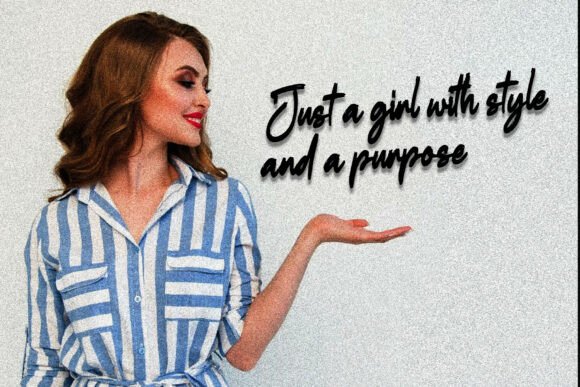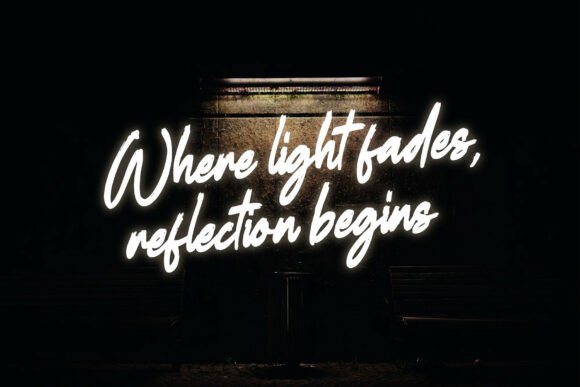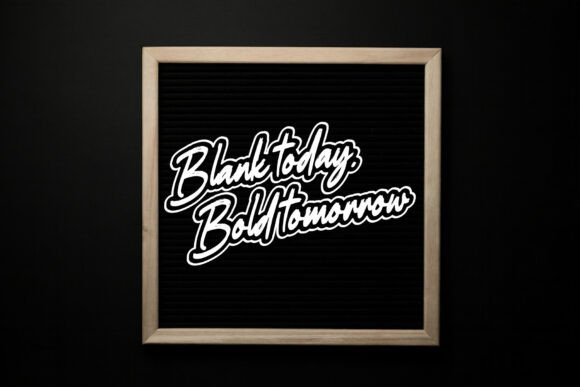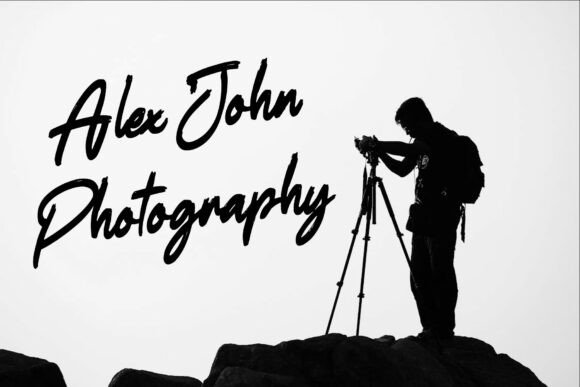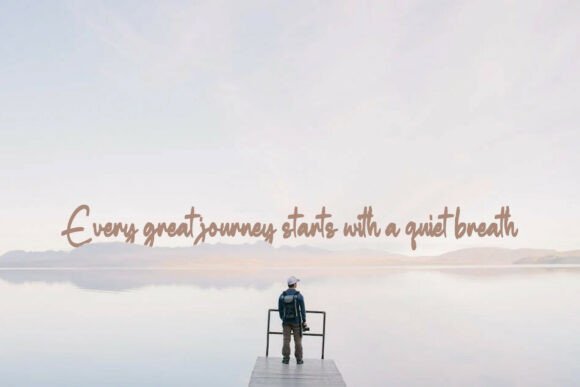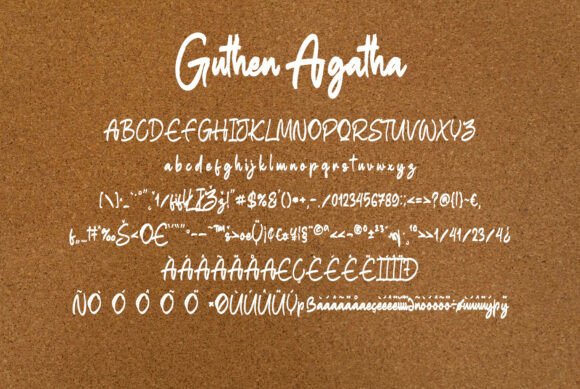
Guthen Agatha Font: Elevate Your Designs with Elegant Handscript Style
Are you tired of using the same old fonts in your designs? Look no further than Guthen Agatha, a stylish handscript font that brings a dynamic, modern edge to any project. With its bold strokes and effortless elegance, Guthen Agatha is perfect for designers and crafters looking to add a touch of sophistication to their work.
What is Guthen Agatha Font?
Guthen Agatha is a carefully crafted handscript font that mimics authentic signature writing. Its unique blend of bold strokes and fluid movements gives it a strong personality that’s both energetic and elegant. The font’s slightly rough texture adds a layer of depth and character, making it perfect for a wide range of applications, from branding and posters to apparel and creative headlines.
Key Features of Guthen Agatha Font
• Stylish Handscript Style: Guthen Agatha boasts a beautiful, handscript style that’s perfect for adding a personal touch to your designs.
• Bold Strokes: The font’s bold strokes give it a confident and dynamic feel that’s sure to grab attention.
• Effortless Elegance: Despite its bold strokes, Guthen Agatha maintains an air of elegance and sophistication, making it perfect for high-end branding and designs.
• Energetic Flow: The font’s energetic flow and fluid movements give it a sense of movement and energy.
• Slightly Rough Texture: The font’s slightly rough texture adds a layer of depth and character, giving it a unique and authentic feel.
• Versatility: Guthen Agatha is incredibly versatile, making it perfect for a wide range of applications, from branding and posters to apparel and creative headlines.
Uses of Guthen Agatha Font
Guthen Agatha is an incredibly versatile font that can be used in a wide range of applications, including:
• Branding: Use Guthen Agatha to create bold, eye-catching logos and branding materials that make a statement.
• Posters: Add a touch of elegance and sophistication to your posters with Guthen Agatha’s beautiful handscript style.
• Apparel: Use Guthen Agatha to create stylish and eye-catching apparel designs that are sure to turn heads.
• Creative Headlines: Add a touch of personality and flair to your headlines with Guthen Agatha’s energetic flow and bold strokes.
Why Choose Guthen Agatha Font?
So why choose Guthen Agatha font for your next design project? Here are just a few reasons:
• Unique Style: Guthen Agatha offers a unique and stylish handscript style that’s sure to set your designs apart.
• Versatility: The font’s versatility makes it perfect for a wide range of applications, from branding and posters to apparel and creative headlines.
• Elegance and Sophistication: Guthen Agatha brings a touch of elegance and sophistication to any design, making it perfect for high-end branding and designs.
• Easy to Read: Despite its bold strokes, Guthen Agatha is incredibly easy to read, making it perfect for use in body text and headlines.
In conclusion, Guthen Agatha font is a stylish and versatile handscript font that’s perfect for designers and crafters looking to add a touch of elegance and sophistication to their work. With its bold strokes, effortless elegance, and energetic flow, Guthen Agatha is sure to elevate your designs and make them stand out from the crowd. So why wait? Try Guthen Agatha font today and see the difference it can make in your designs!